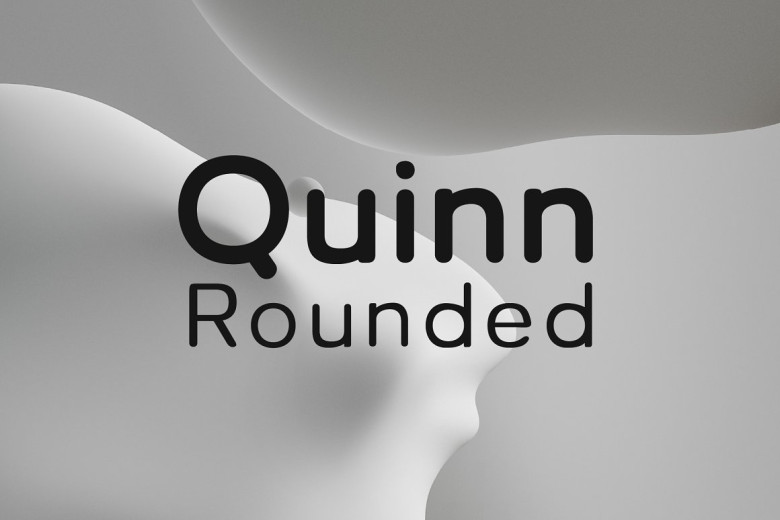
Quinn Rounded Font
Quinn Rounded is an elegant sans-serif font designed to be modern, minimal and bubbly. This charming font can be used both in headers and body copy for body copy; including all Latin (with accents), special characters, numbers and punctuation marks.
Quinn Rounded Sans Serif Font